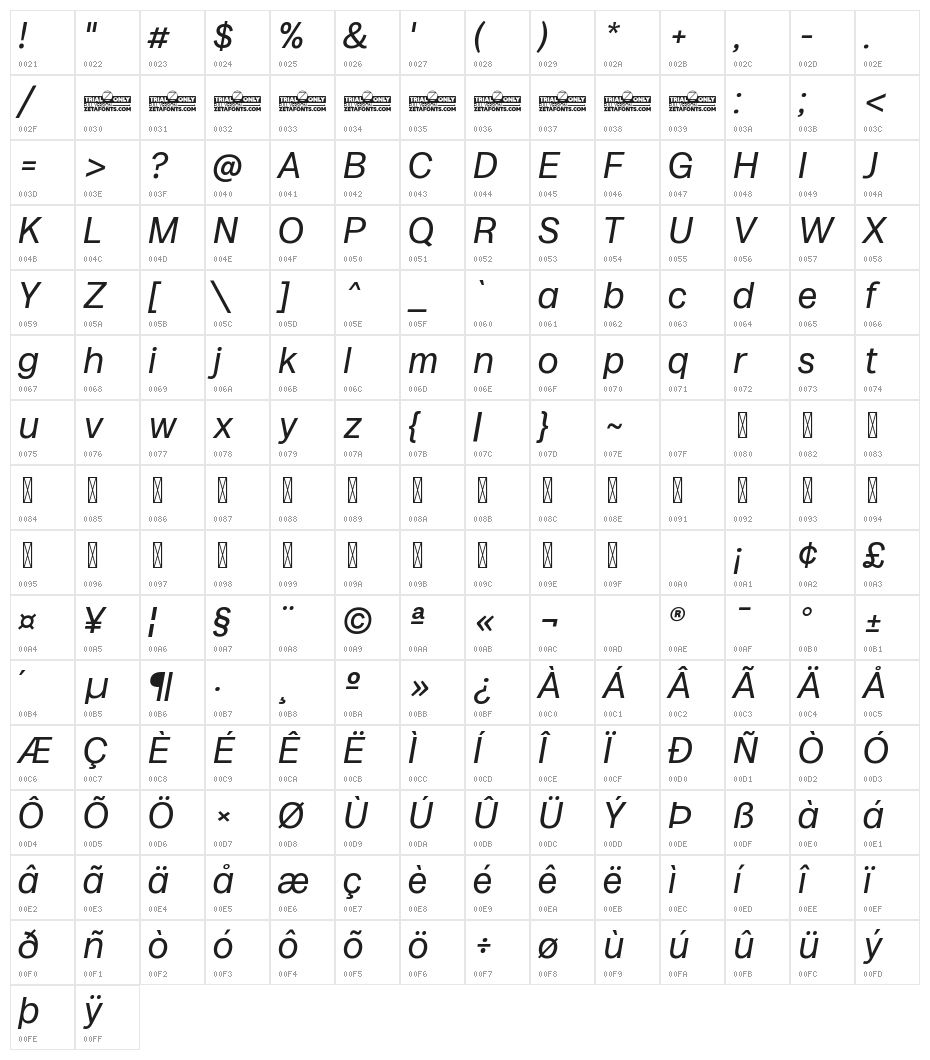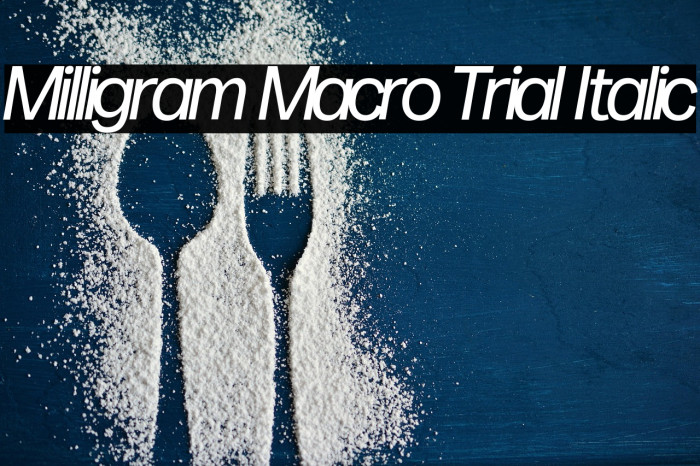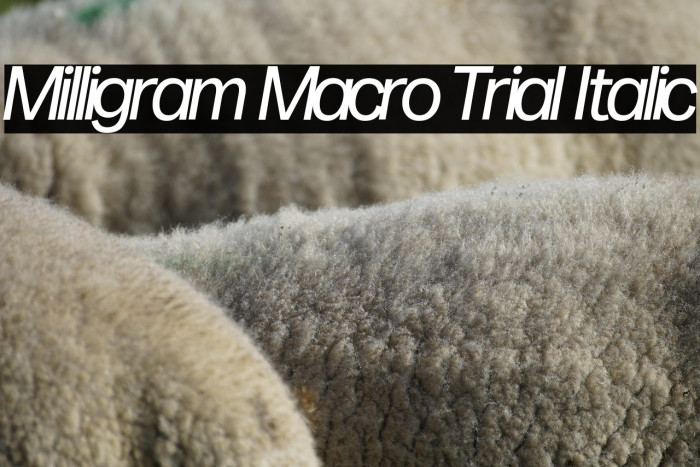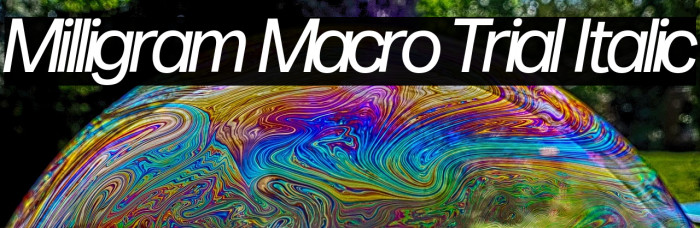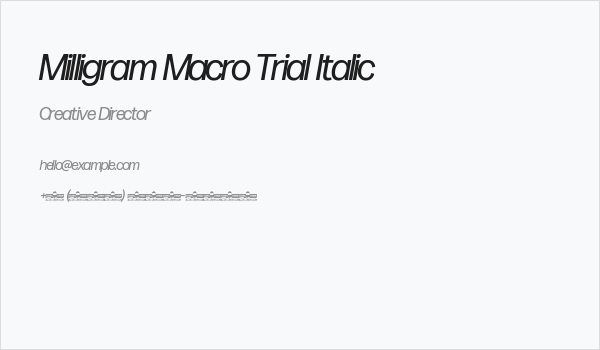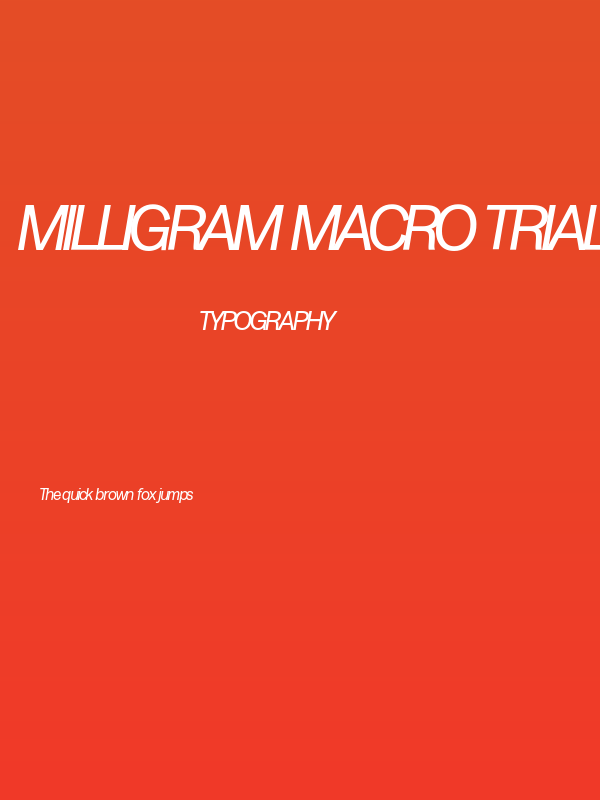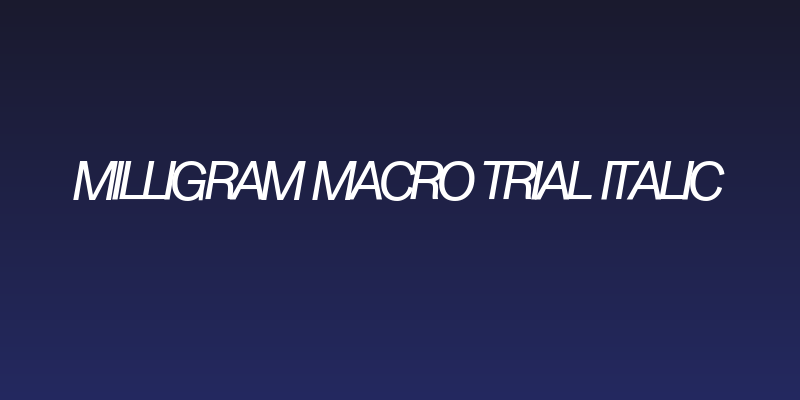
Milligram Macro Trial Italic Font
Milligram Macro Trial Italic Description
This font features a sleek, modern design with a distinct italic slant, giving it a dynamic and forward-moving appearance. The characters are bold and slightly condensed, providing a strong visual impact while maintaining readability. The strokes are consistent in thickness, offering a medium contrast that enhances clarity without overwhelming the viewer. Its clean lines and contemporary style make it suitable for a variety of design applications, from digital media to print. The font's unique style is both professional and approachable, making it versatile for different contexts.
| Use Case | Headlines, Logos, Digital Media |
| Proposed Projects | Ideal for branding, advertising, digital media, and editorial design projects. |